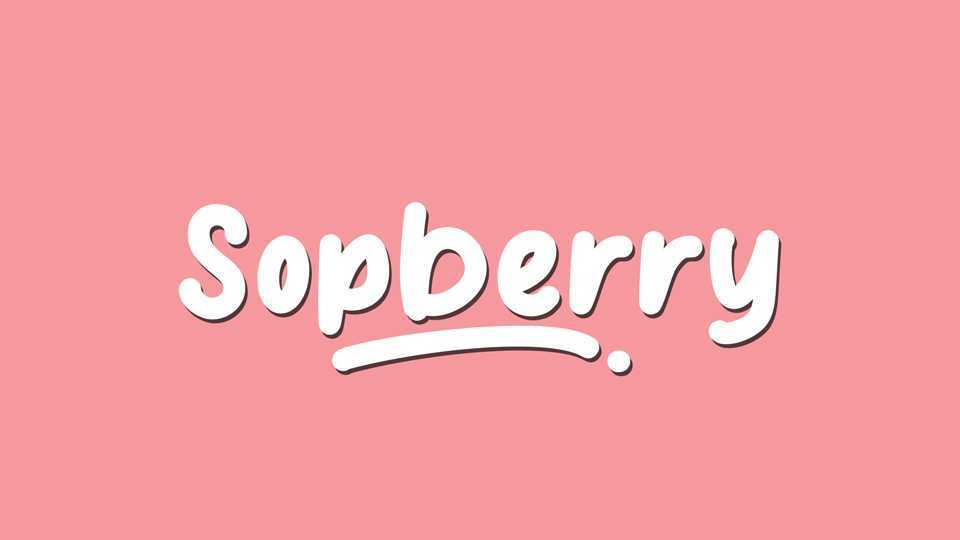
Download Sopberry font, a hand lettered comic typeface charged with a cheerful, natural vibe. Add a playful and quirky touch to your designs with Sopberry font.